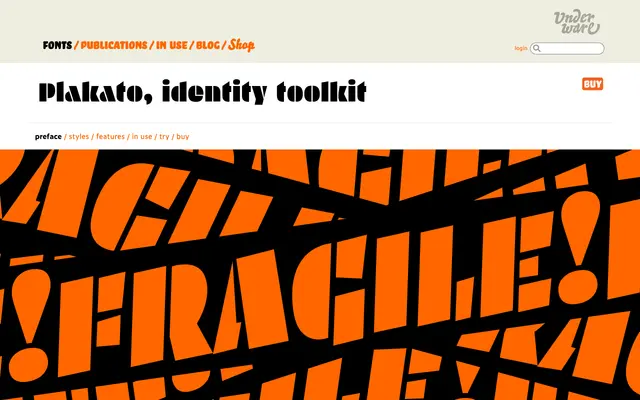
Plakato
A display typeface from Underware with roots in poster lettering tradition, designed for large-scale typographic work.
Plakato takes its name from the poster lettering tradition, positioning it squarely in large-scale display use. Underware, the Amsterdam-based foundry known for experimental and culturally engaged type, developed it as part of their ongoing exploration of expressive lettering. The page content available is limited, but the typeface sits within their broader output of unconventional display work.
The name Plakato references poster lettering (from 'plakat'), suggesting a large-scale display-oriented grotesque or sans, consistent with Underware's experimental display releases.